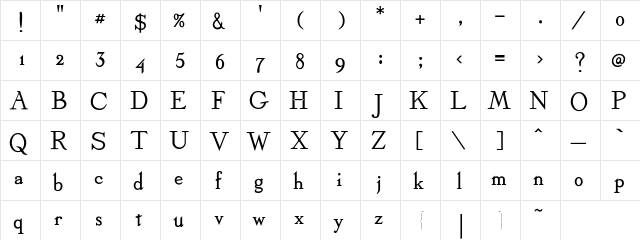
Stickee-Bold Regular
Design Context for Stickee-Bold Typeface
Stickee-Bold is a composed and adaptable typeface that performs quietly and consistently across a wide range of design contexts. Its bold stroke weight gives it real presence on the page.
Pro Tip: Use Stickee-Bold in both headline and body roles to test its range before committing to a single application.